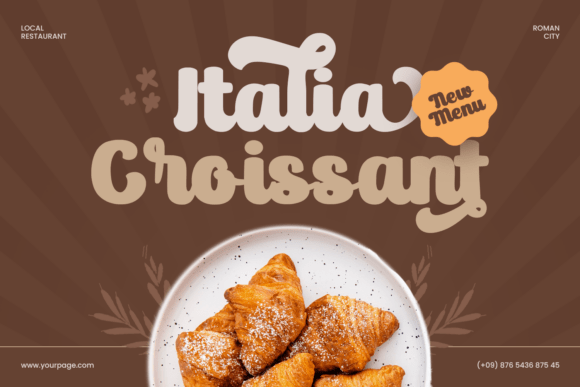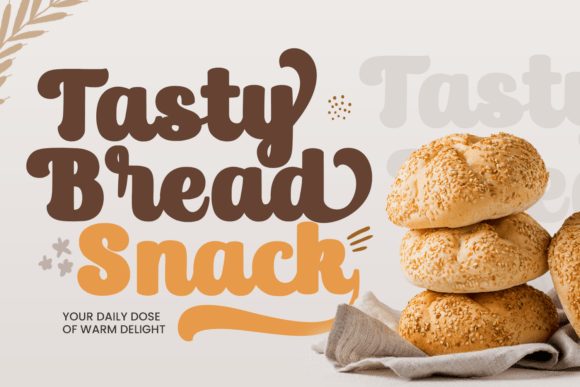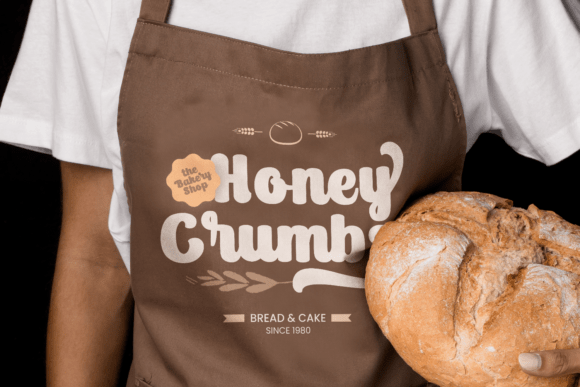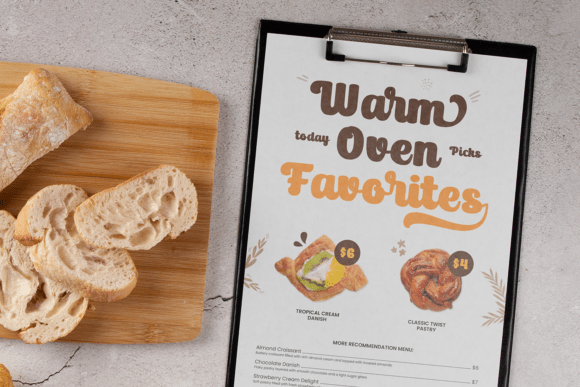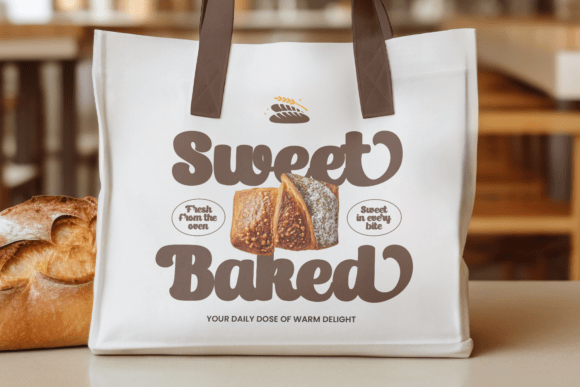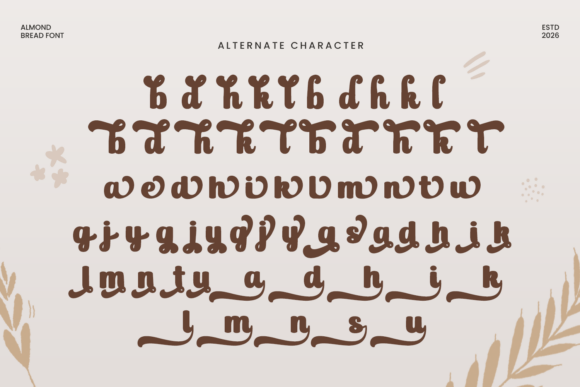
Discover the Perfect Blend of Sweetness and Strength
As a designer, you know the thrill of finding that perfect font to elevate your project from ordinary to extraordinary. It’s the moment when your creative vision comes together, and you can’t help but feel a rush of excitement. For me, that moment often comes when I’m working on a project that needs a warm and inviting touch – like a bakery branding or a wedding invitation. That’s where Almond Bread Font comes in, a bold script font that perfectly captures the essence of cozy bakery aesthetics and rustic farmhouse charm.
With its smooth curves and thick strokes, Almond Bread Font is a game-changer for designers looking to add a touch of personality to their work. Its flowing letterforms create a natural rhythm that’s both playful and elegant, making it perfect for a wide range of creative themes. Whether you’re working on packaging, posters, or seasonal designs, this font is sure to bring a delightful handcrafted feel to your project.
Almond Bread Font Key Features
- Font Family: Almond Bread Font is a unique, handwritten font family designed to resemble hand-drawn brushstrokes.
- Unique Characteristics: Almond Bread Font features a distinctive, hand-drawn look with subtle texture and imperfections, giving it a warm and inviting feel.
Designer Review: Almond Bread Font
I recently had the chance to work with the Almond Bread Font, and I must say it’s a delightful addition to any design project. ✨ The font’s unique, hand-drawn style adds a touch of warmth and personality to any text, making it perfect for food-related branding, packaging, or advertising.
The Almond Bread Font is also highly legible, even at smaller font sizes, making it suitable for body text or headlines. ✨ Its friendly, approachable feel makes it an excellent choice for businesses that want to connect with their customers on a more personal level.
- Unique, hand-drawn style adds character to text
- Highly legible, even at smaller font sizes
- Perfect for food-related branding and advertising
- May not be suitable for formal or professional branding
- Some characters may be difficult to read or require customization
- Limited font weights and styles available
Overall, I think the Almond Bread Font is a great choice for designers looking to add a personal touch to their projects. With its unique style and high legibility, it’s sure to make a lasting impression on your audience.
Tip: Use Almond Bread Font for titles and headings to add a touch of elegance to your design.
Tip: Use Almond Bread Font for labels and captions to add a personal touch to your design.
Tip: Use Almond Bread Font for titles and headings to add a touch of sophistication to your presentation.
Almond Bread Font is ideal for:
- Special occasion announcements.
Remember to use Almond Bread Font consistently throughout your design to create a cohesive and polished look.